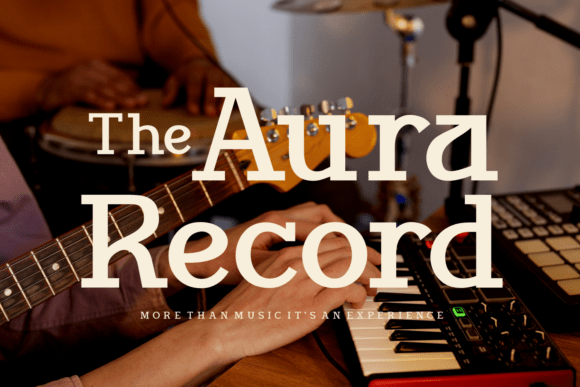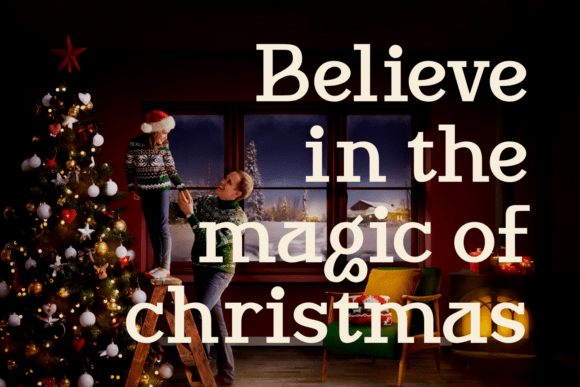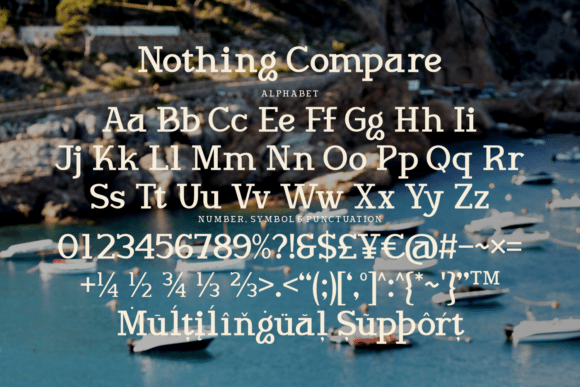
Introduction to Nothing Compare Font
As a designer, there’s nothing quite like the thrill of stumbling upon a new font that elevates your creative project to the next level. For me, it was a late-night browsing session that led me to the Nothing Compare Font, and I was immediately smitten. Its elegant serifs and balanced proportions had me hooked, and I knew I had to dive deeper.
But what sets Nothing Compare Font apart from the rest? Is it the delicate details that add a touch of sophistication to any design? Or is it the timeless elegance that makes it a staple for editorial layouts, wedding stationery, and upscale branding? Whatever the reason, one thing is clear: this font is a design resource like no other.
Key Features of Nothing Compare Font
- High-quality design resource with a transparent background, perfect for creative projects.
- Unique characteristics include a modern and sleek aesthetic, making it ideal for minimalist designs.
Honest Review: Nothing Compare Font
I recently had the chance to work with the Nothing Compare Font in a creative project, and I must say, it’s been a game-changer. This design resource offers a high-quality, modern aesthetic that can elevate any design to the next level.
- ✨ The font’s transparent background makes it incredibly versatile, allowing for seamless integration into any design project.
- ✨ The font’s clean, minimalist design makes it perfect for a wide range of creative projects, from logos to infographics.
While the Nothing Compare Font is an excellent choice for many designers, there are a few limitations to consider:
- ⚠️ The font may not be suitable for projects that require a more traditional or classic look.
- ⚠️ Some users may find the font’s minimalist design too simple or generic.
Overall, I’m thoroughly impressed with the Nothing Compare Font. Its high quality, modern design, and free download option make it a valuable addition to any designer’s toolkit. Whether you’re working on a logo, brochure, or website, this font is sure to deliver.
The Nothing Compare Font is a unique and creative design resource that can elevate any project. With its high-quality design and transparent background, it’s perfect for adding a touch of elegance to your work.
The Nothing Compare Font is perfect for a variety of creative projects, including:
- Website headers and footers